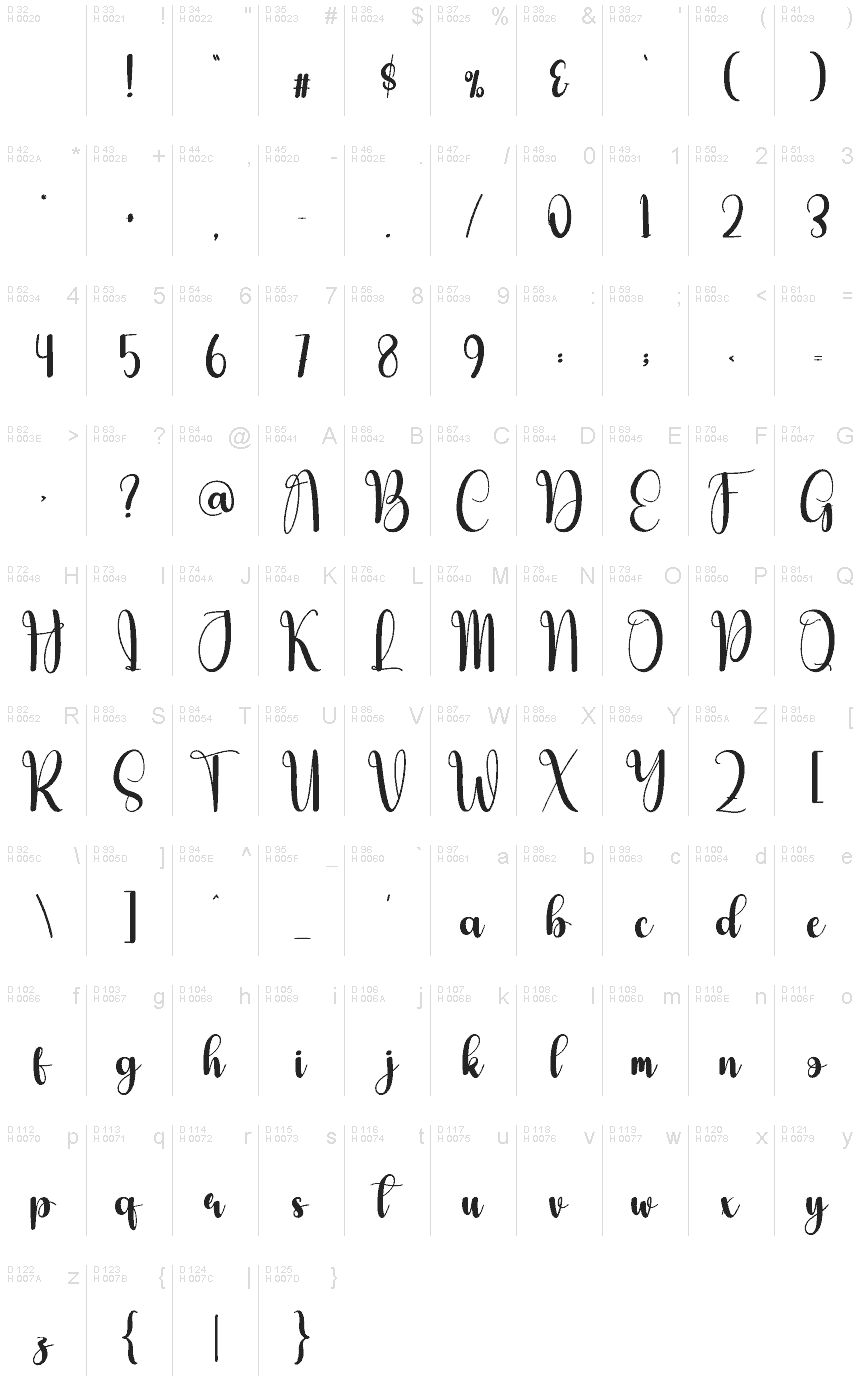
Spooky Vacations
Spooky Vacations font by Scratchones is a handwritten font with expressive and elegant letters. The flowing script has a vintage charm that seeks to set an overall whimsical mood to every text it decorates whether large or small. Its decorative flair helps deliver information in a distinguished way that guarantees that readers will not easily forget.